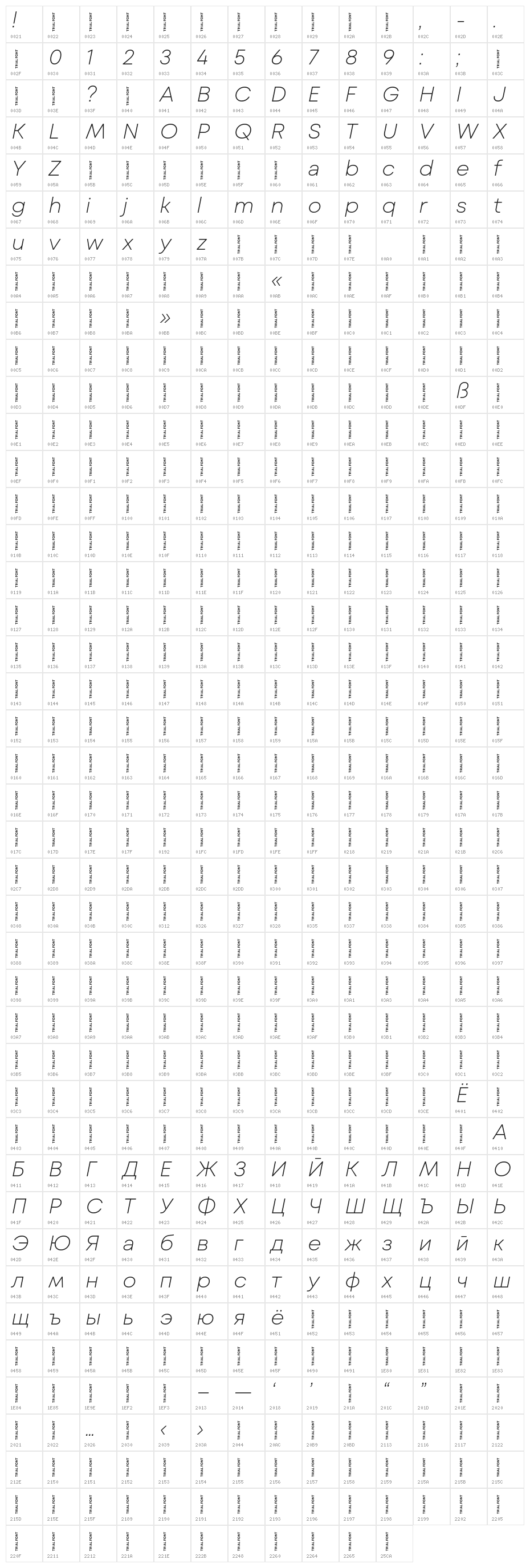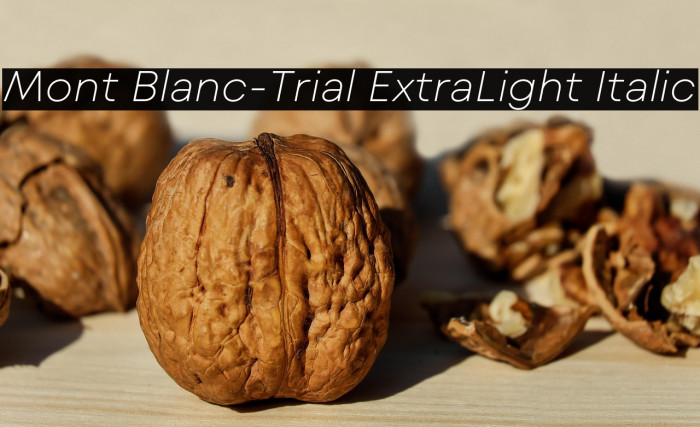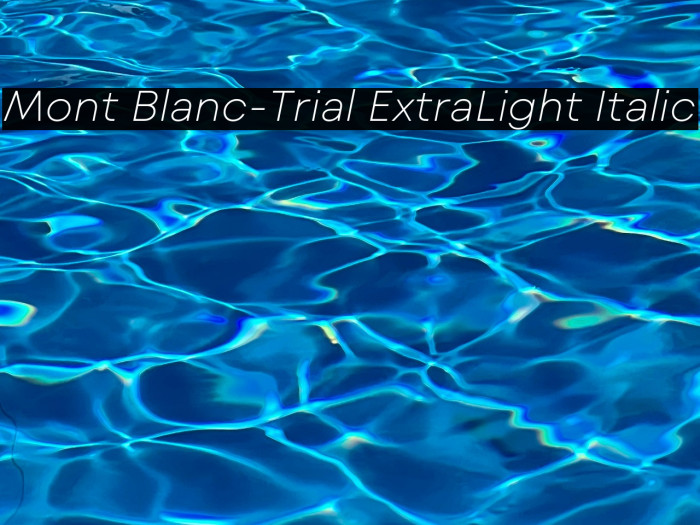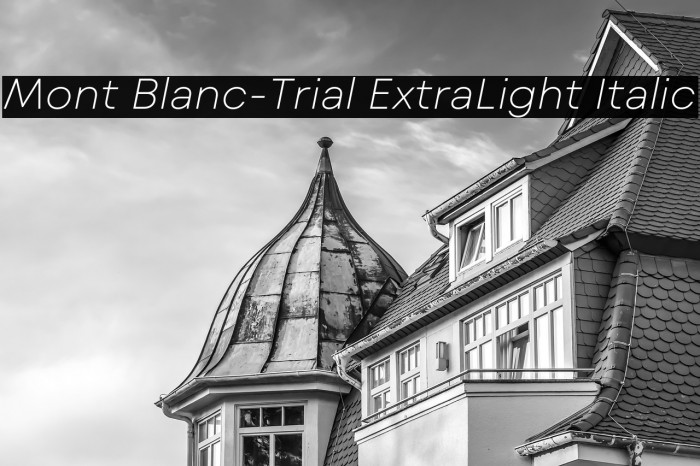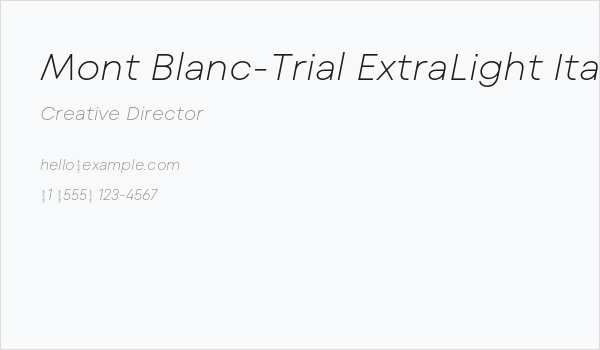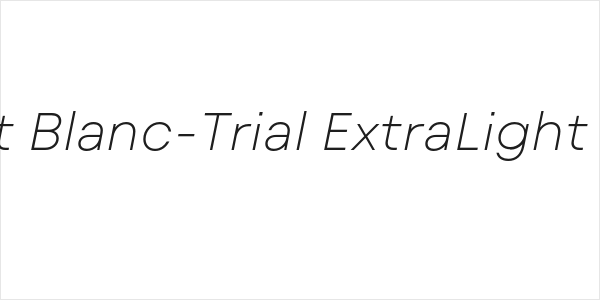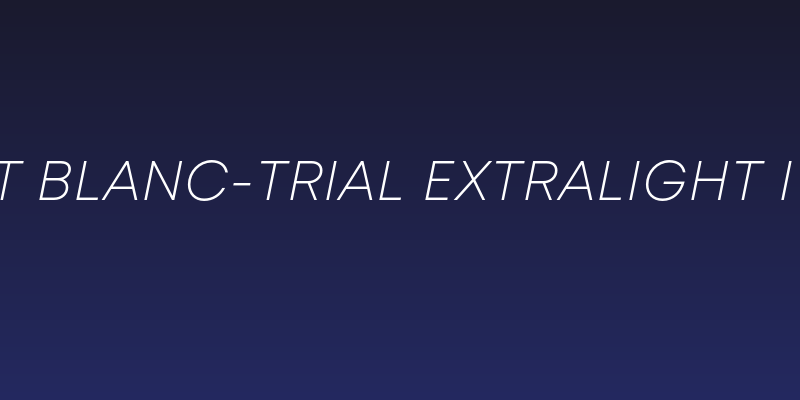
Mont Blanc-Trial ExtraLight Italic Font
Mont Blanc-Trial ExtraLight Italic Description
This font features a sleek and elegant design with an extra light weight, giving it a refined and sophisticated appearance. The italic style adds a dynamic and fluid touch, enhancing its modern aesthetic. The characters are well-proportioned with a consistent stroke width, contributing to its clean and minimalist look. The uppercase and lowercase letters maintain a harmonious balance, while the numerals and special characters are crafted with precision. This font's airy and open feel makes it highly legible, suitable for a variety of design applications.
Proposed ProjectsIdeal for fashion magazines, luxury branding, elegant invitations, and modern web design.